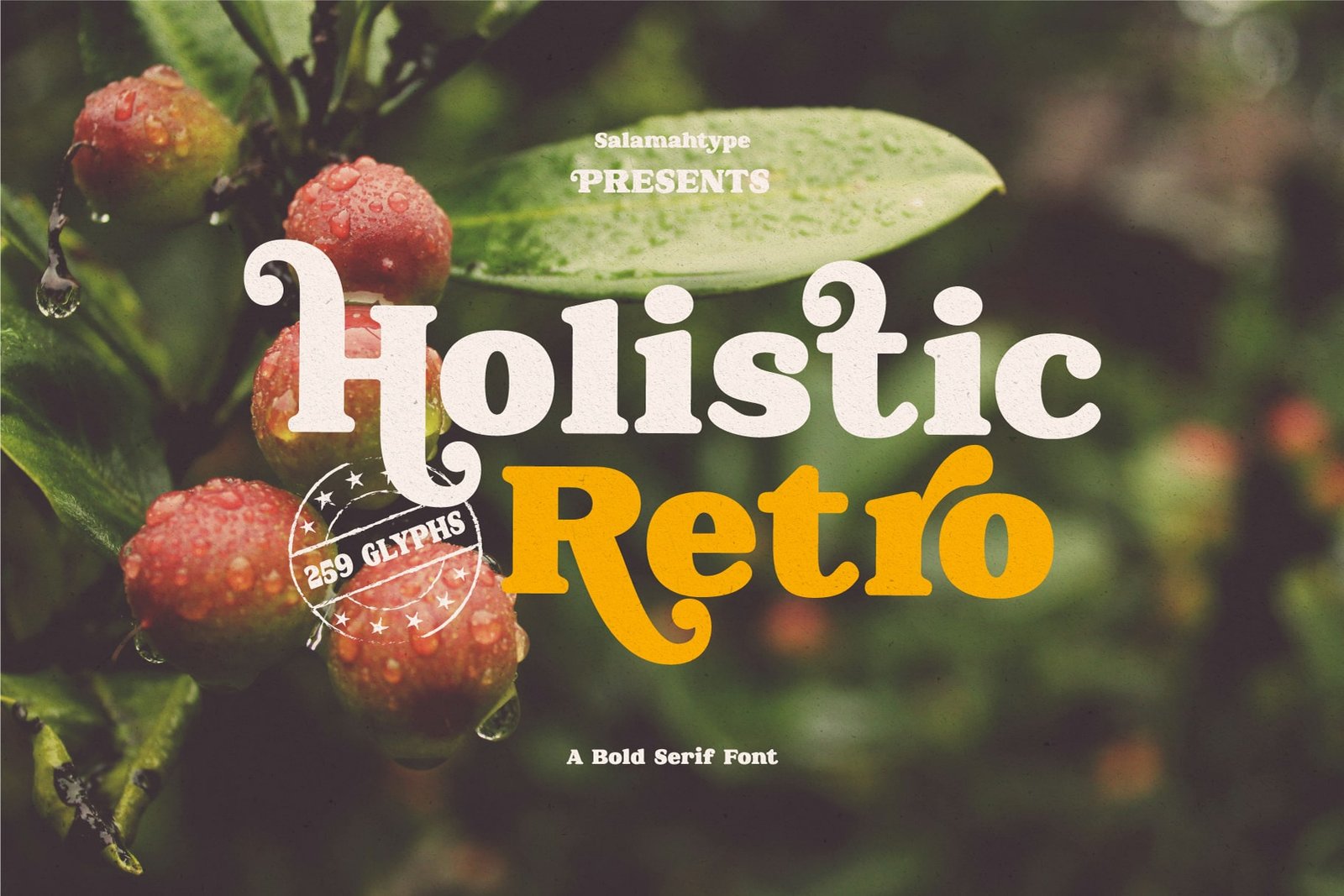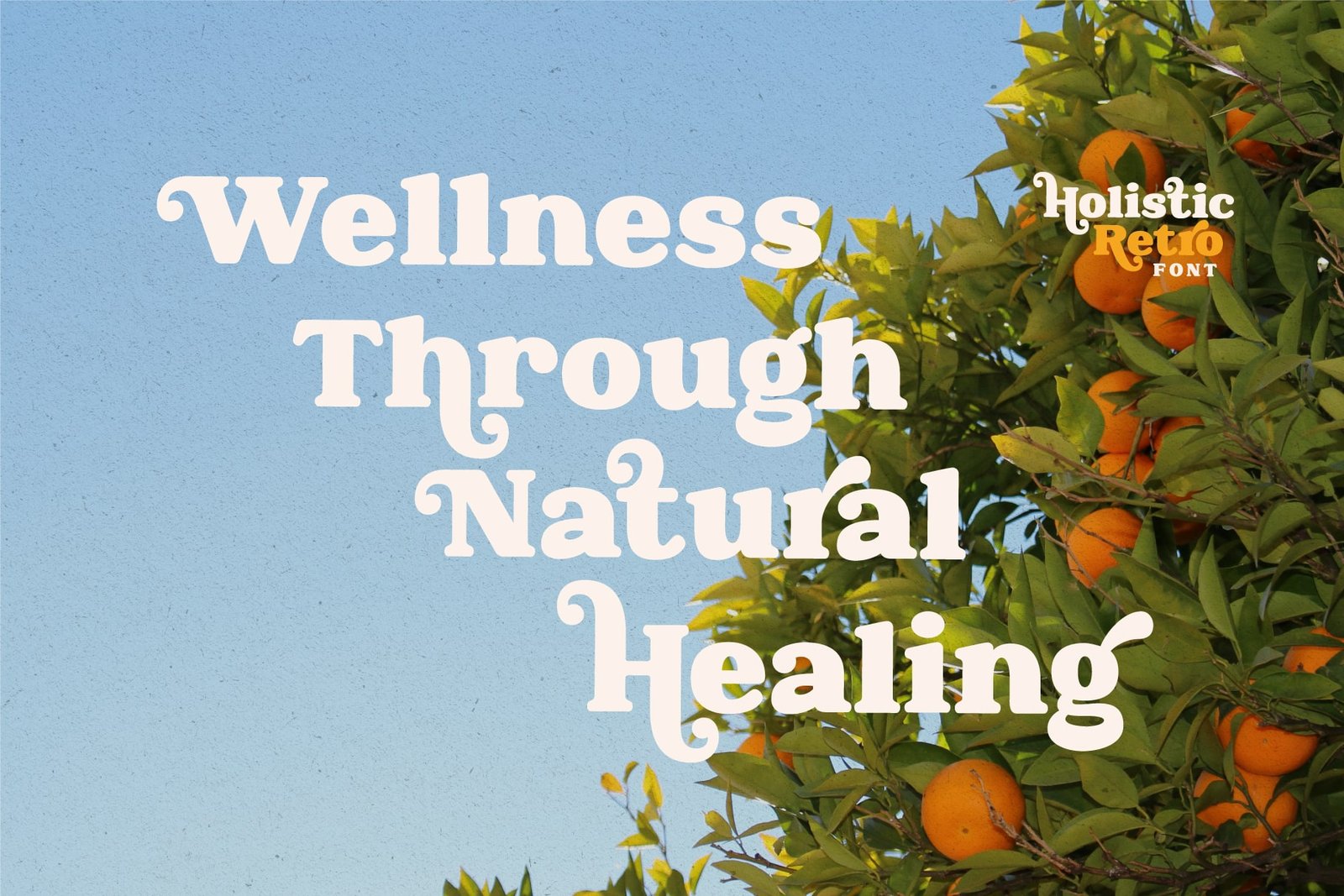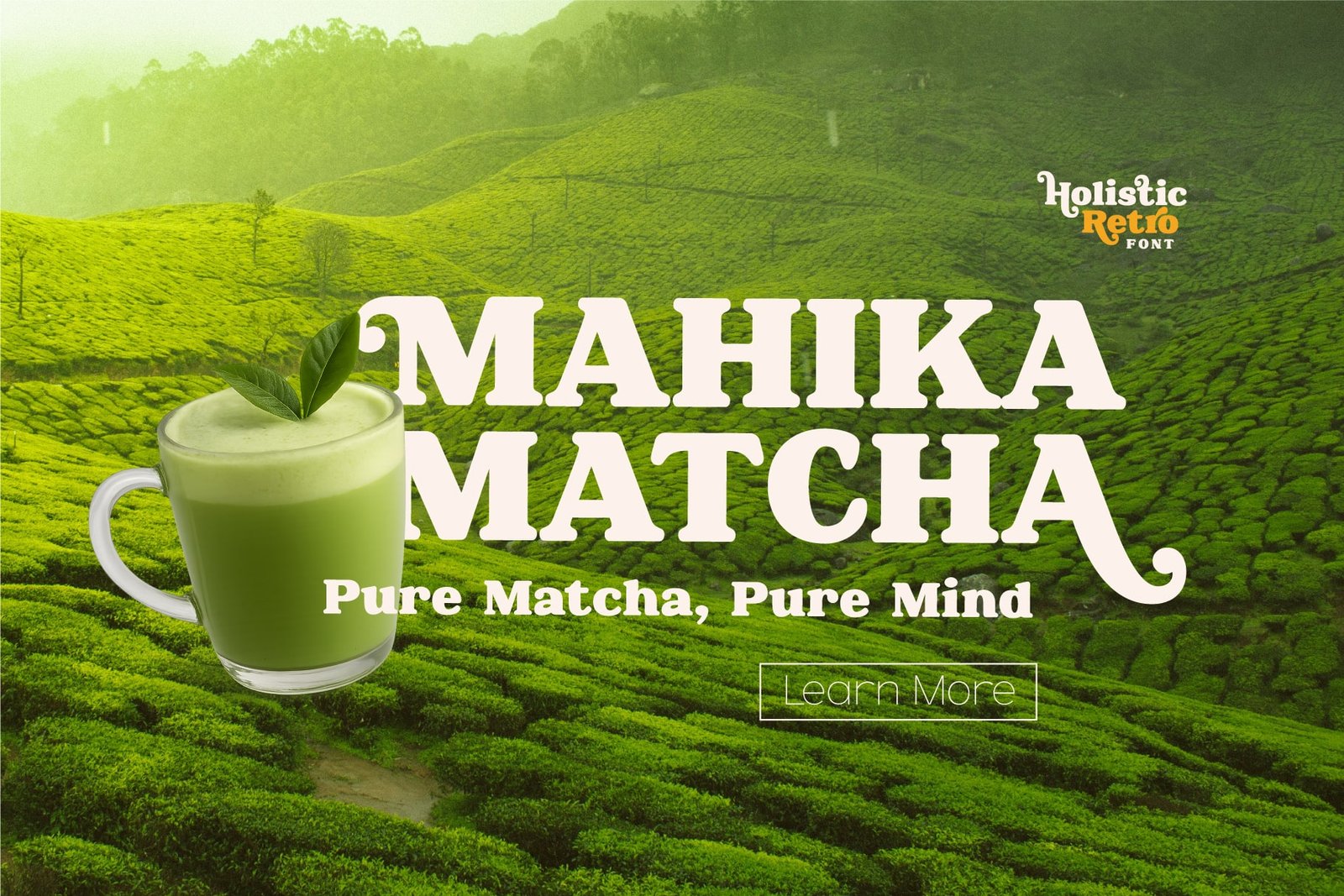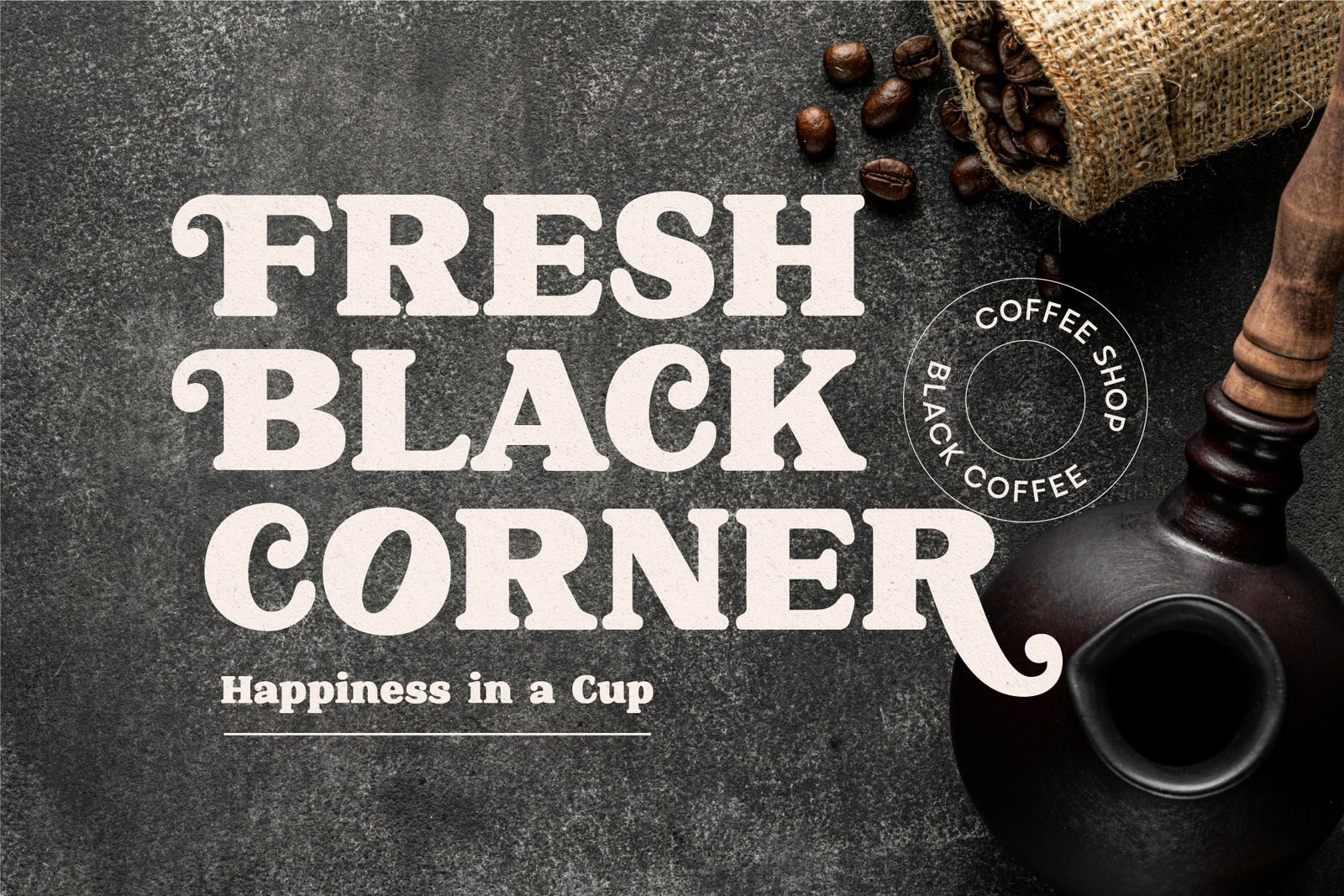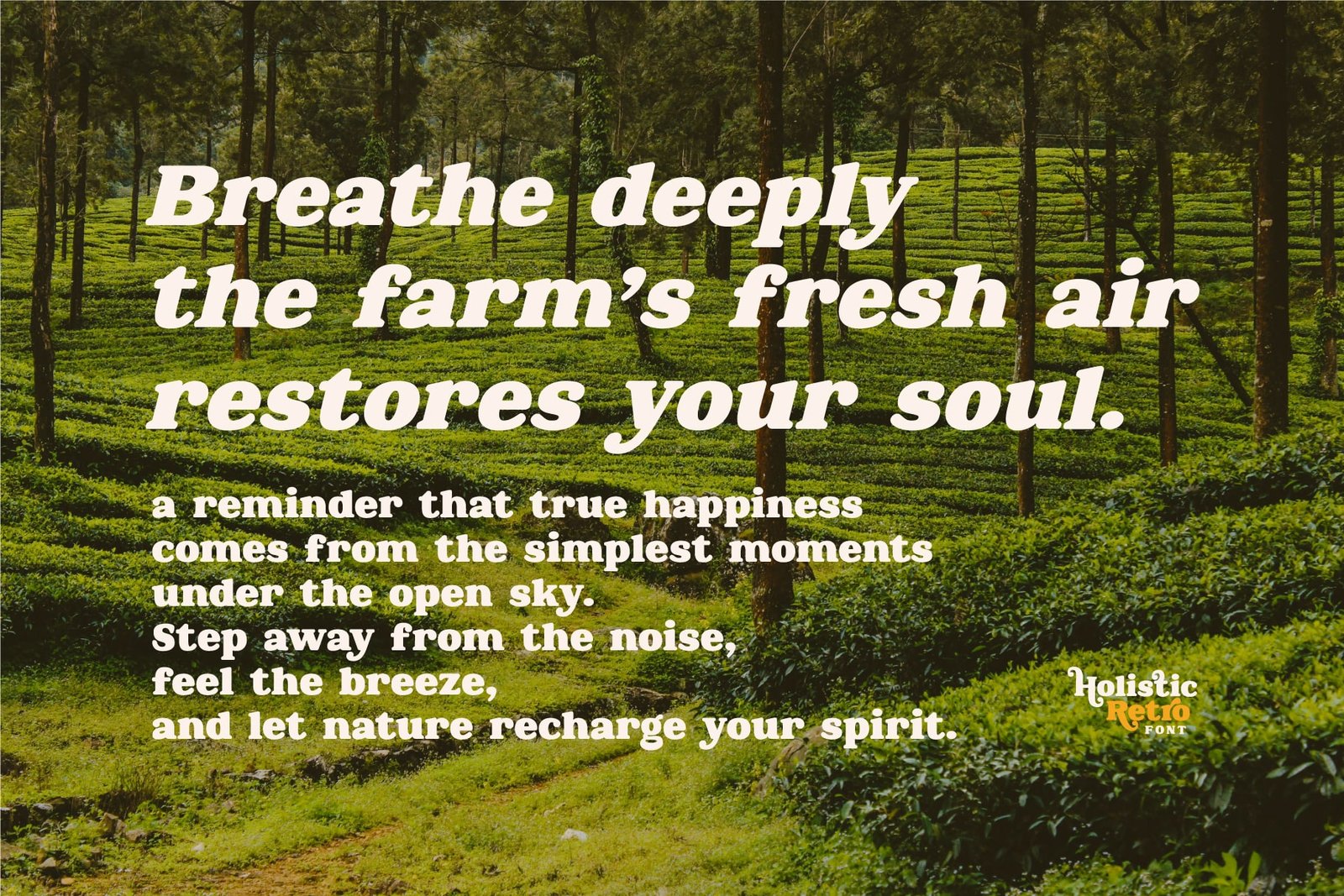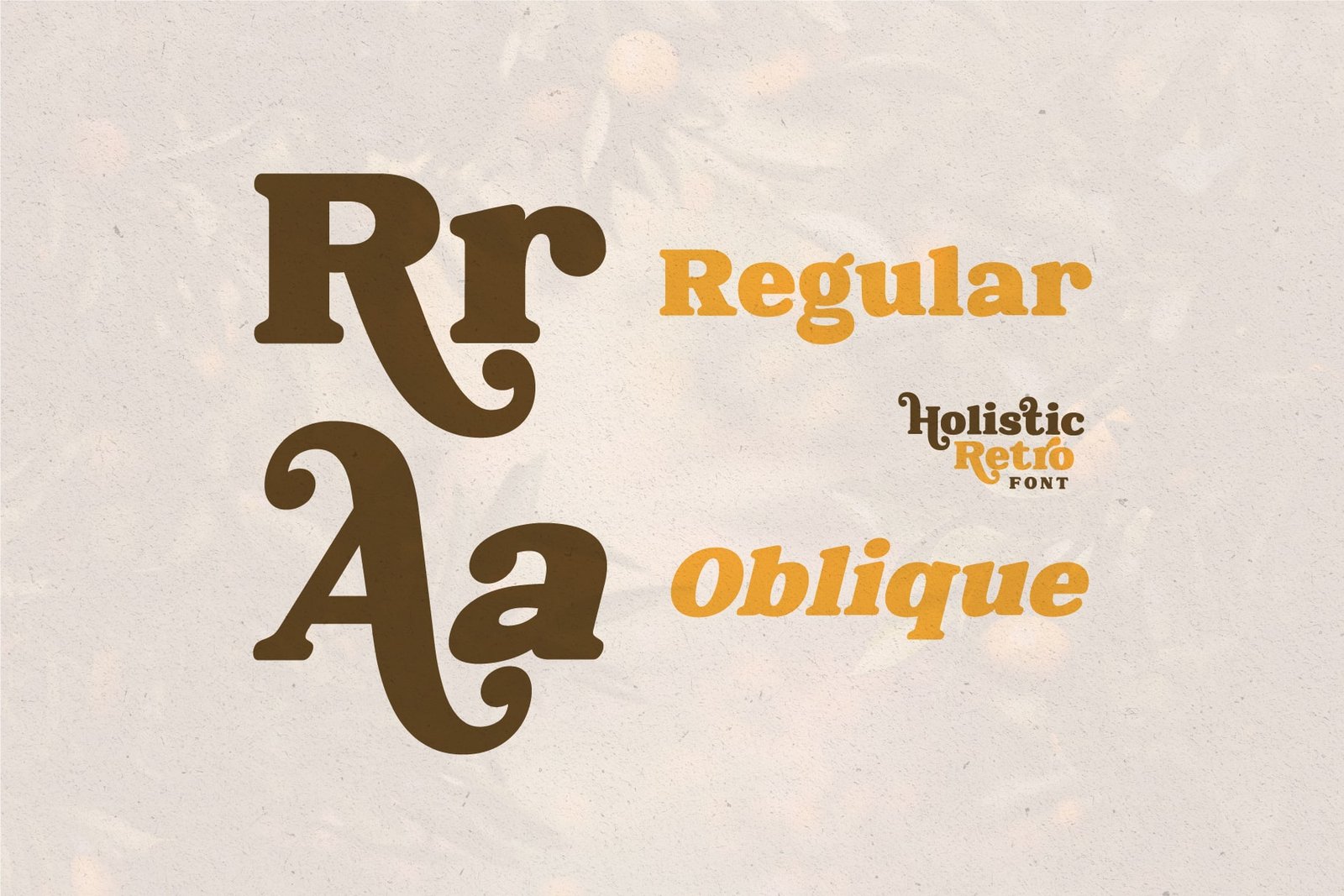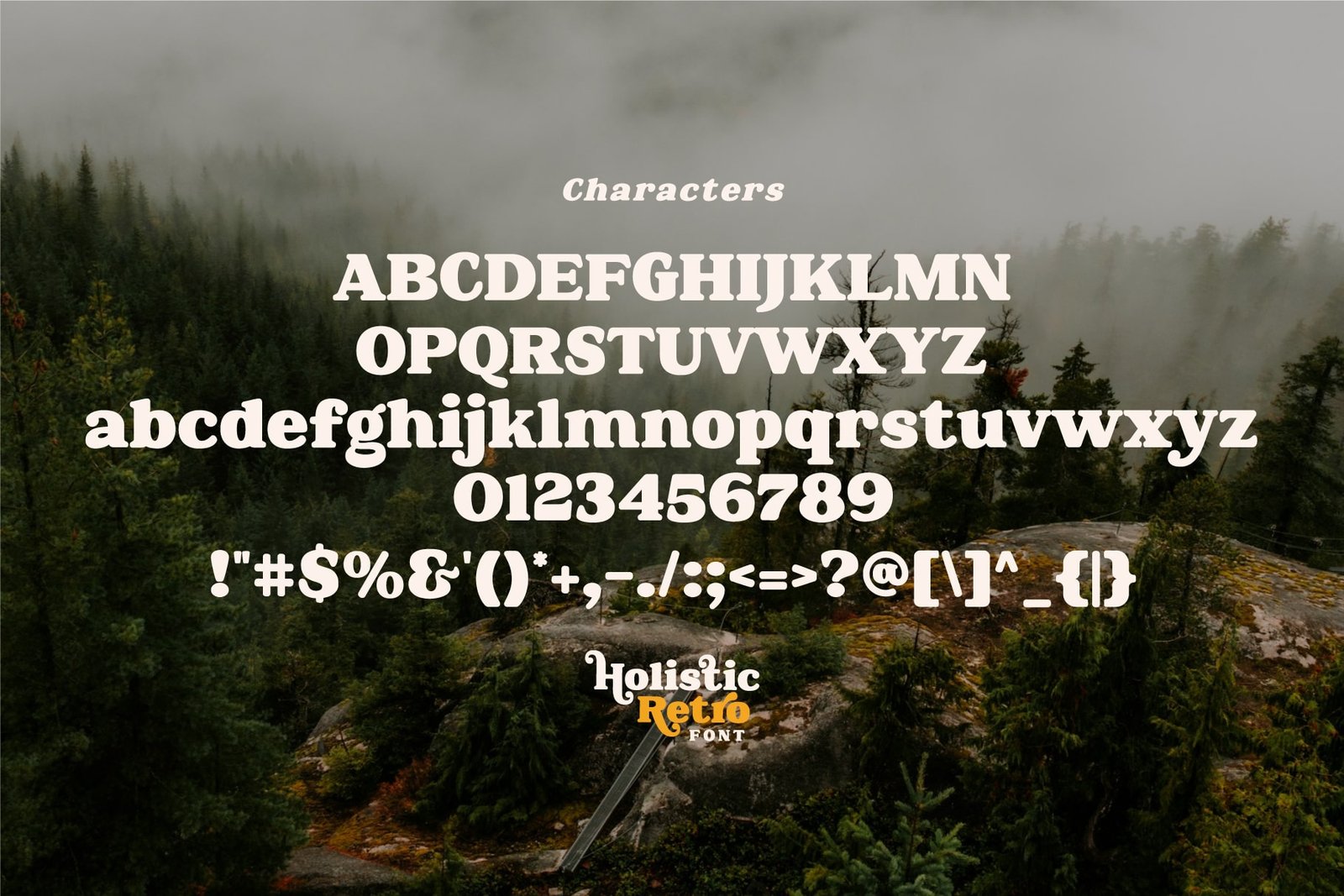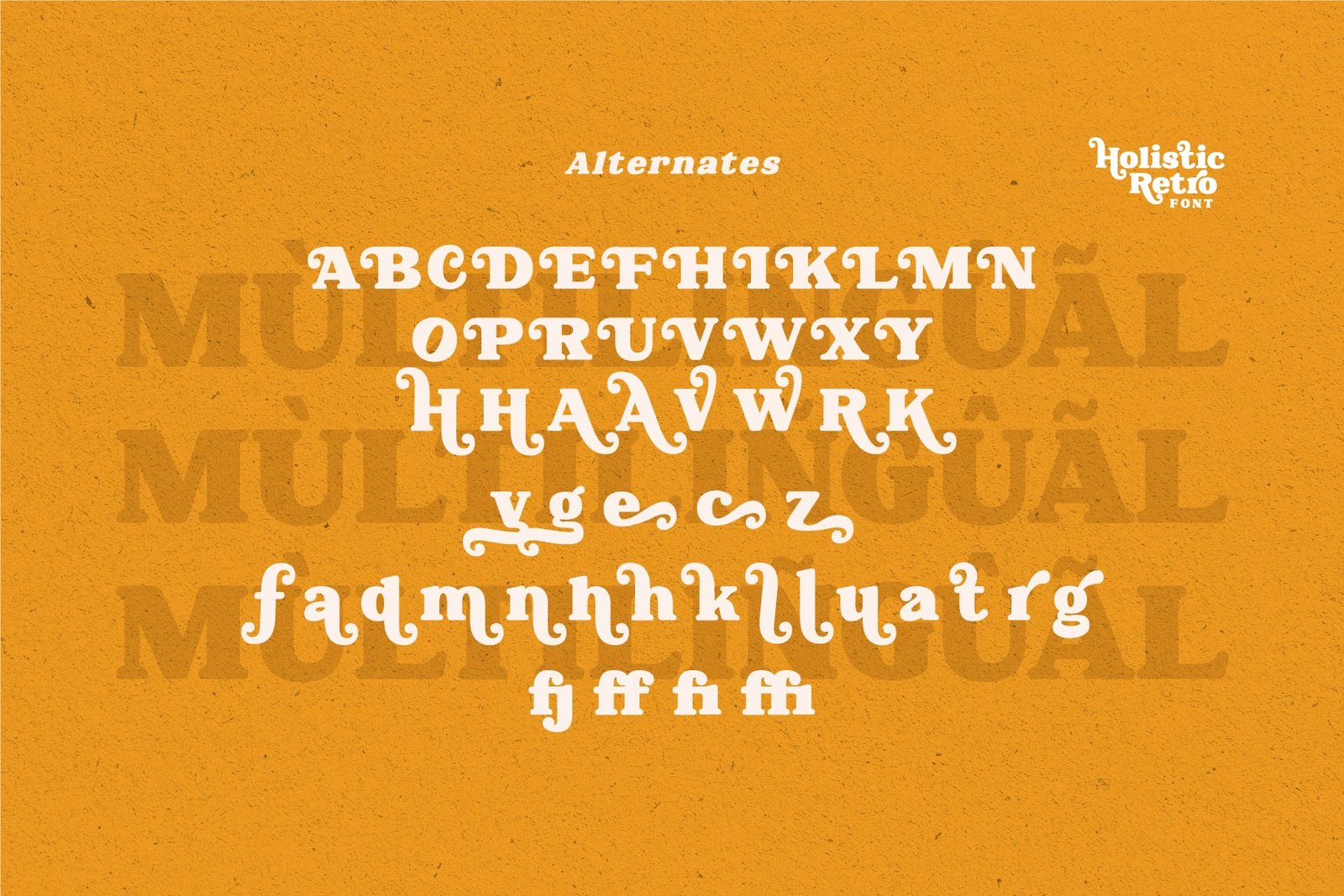
- Holistic Retro – Bold Serif Font
Holistic Retro Regular
Holistic Retro Oblique
Holistic Retro – Bold Serif Font
Holistic Retro is a bold smooth serif font with a retro vintage style that brings a touch of nostalgia to your designs. It includes lots of alternates for creative flexibility, perfect for creating eye-catching logos, branding, posters, social media posts, and digital projects.
This font combines classic curves and modern details, making it ideal for both professional and creative use. Add a timeless retro feel to your work with Holistic Retro!
Features:
Uppercase & Lowercase
Alternates & Ligatures
Punctuation & Symbols
Multilingual Support
Perfect for: Logo design, branding, packaging, posters, digital art, and more.